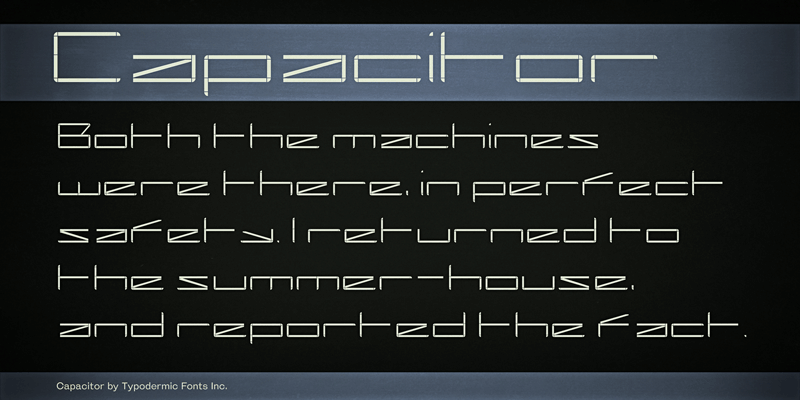
Capacitor is a wide, segmented LCD/LED display font. It’s a wider matrix that a typical segmented font is best used used at smaller sized to to create textural headlines which contrast against something narrow yet readable. This font includes a license that allows free commercial use: sometimes referred to as a desktop license. This allows you to install the font on a computer and use it to create posters, web graphics, game graphics, t-shirts, videos, signs, logos and more. Read the license agreement for details. If you'd like to embed this font in an app, ebook, on the web or anything that's not covered by the desktop license agreement, visit the link below. You'll find distributors who offer different types of licenses or you can contact me for help. http://typodermicfonts.com/capacitor/ |